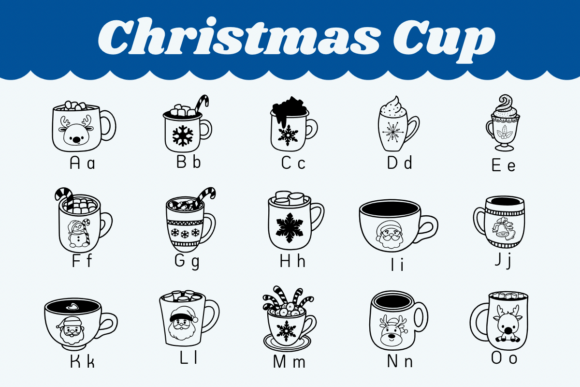
Christmas Cup Font: The Perfect Addition to Your Holiday Designs
Are you looking for a fun and festive way to add some holiday cheer to your designs? Look no further than the Christmas Cup Font! This delightful dingbat font features cute holiday cups filled with hot chocolate and marshmallows, making it the perfect addition to your Christmas designs.
What is Christmas Cup Font?
Christmas Cup Font is a unique dingbat font that features adorable illustrations of holiday cups filled with hot chocolate and marshmallows. The font is designed to add a playful and festive touch to your designs, making it perfect for use in holiday-themed projects such as Christmas cards, invitations, and decorations.
Key Features of Christmas Cup Font
- Cute and playful design: The Christmas Cup Font features cute and playful illustrations of holiday cups, making it perfect for adding a festive touch to your designs.
- Dingbat font: The font is a dingbat font, which means that each character is a unique illustration, allowing you to create fun and creative designs.
- Hot chocolate and marshmallows: The illustrations feature hot chocolate and marshmallows, making it perfect for holiday designs.
Ideas for Using Christmas Cup Font
The Christmas Cup Font is a versatile font that can be used in a variety of ways. Here are a few ideas to get you started:
- Christmas cards: Use the font to create fun and festive Christmas cards for your friends and family.
- Holiday invitations: Add a festive touch to your holiday invitations with the Christmas Cup Font.
- Decorations: Use the font to create festive decorations such as garlands, banners, and signs.
- Social media graphics: Add a festive touch to your social media graphics with the Christmas Cup Font.
Benefits of Using Christmas Cup Font
There are many benefits to using the Christmas Cup Font in your designs. Here are a few:
- Adds a festive touch: The font adds a fun and festive touch to your designs, making them perfect for the holiday season.
- Unique and creative: The font allows you to create unique and creative designs that will stand out from the crowd.
- Versatile: The font can be used in a variety of ways, making it perfect for a range of design projects.
Tips for Getting the Most Out of Christmas Cup Font
Here are a few tips for getting the most out of the Christmas Cup Font:
- Experiment with different colors: Experiment with different colors and combinations to create unique and festive designs.
- Use with other fonts: Use the Christmas Cup Font with other fonts to create fun and creative designs.
- Try different sizes: Try different sizes and scales to create visually interesting designs.
The Christmas Cup Font is a fun and festive dingbat font that is perfect for adding a holiday touch to your designs. With its cute illustrations of holiday cups filled with hot chocolate and marshmallows, it’s the perfect addition to your Christmas designs. Whether you’re creating Christmas cards, invitations, decorations, or social media graphics, the Christmas Cup Font is sure to bring some holiday cheer to your designs.